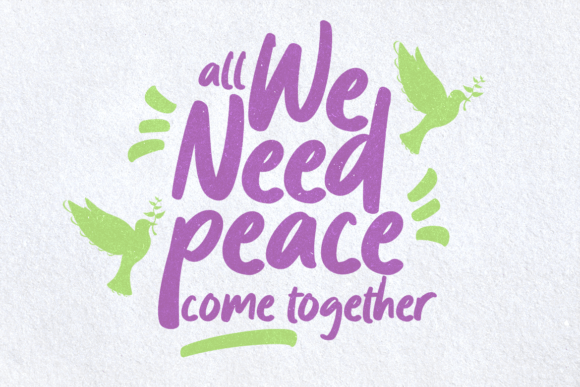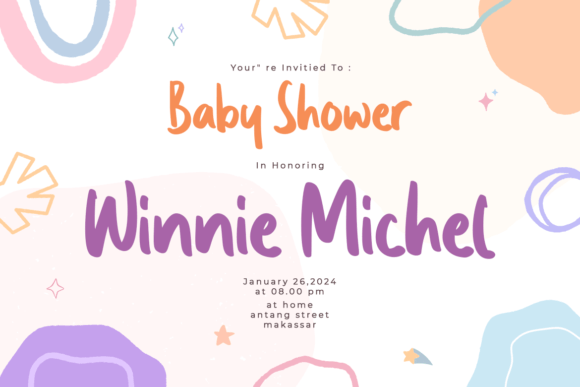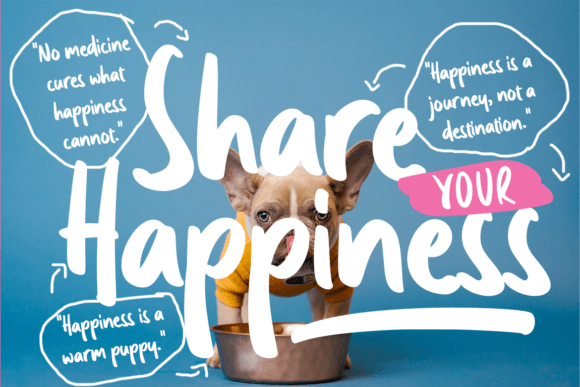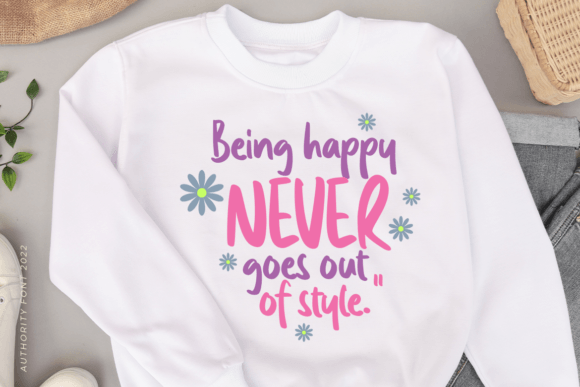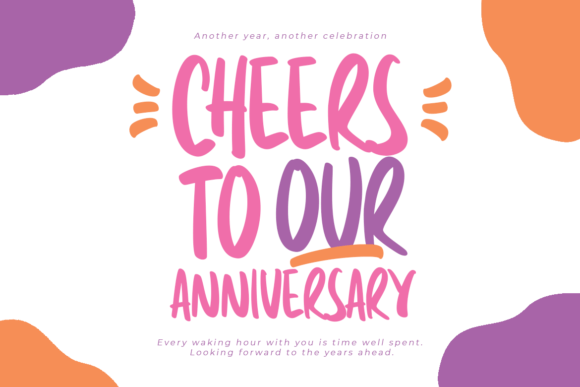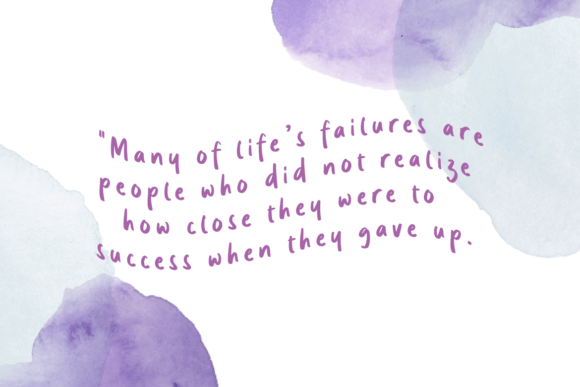
Introducing Authority Font: Elevate Your Designs with a Touch of Elegance
Are you on the hunt for a font that can add a dash of sophistication and playfulness to your creative projects? Look no further than Authority Font, a versatile and stylish handwritten script font that’s perfect for a wide range of applications. From greeting cards to headlines, and many more, Authority Font is the perfect addition to any design project.
What Makes Authority Font So Special?
Authority Font is a beautifully crafted handwritten script font that’s designed to give your designs a clean and exquisite feel. Its unique blend of elegance and playfulness makes it perfect for a wide range of projects, from formal events to casual social media posts. With Authority Font, you can add a touch of sophistication to your designs and make them stand out from the crowd.
Key Features of Authority Font
- Versatile: Authority Font is perfect for a wide range of applications, including greeting cards, headlines, posters, and more.
- Stylish: With its elegant and refined design, Authority Font is sure to add a touch of sophistication to any project.
- Playful: Despite its elegance, Authority Font still has a playful and fun vibe that’s perfect for casual designs.
- Handwritten: Authority Font is a beautifully crafted handwritten script font that adds a personal touch to any design.
- Clean: With its clean and refined design, Authority Font is perfect for designs that require a high level of legibility.
Why Choose Authority Font?
There are many fonts to choose from, but Authority Font stands out from the crowd for several reasons. Firstly, its unique blend of elegance and playfulness makes it perfect for a wide range of projects. Secondly, its clean and refined design ensures that your text is always legible, even at small sizes. Finally, Authority Font is incredibly versatile, making it perfect for everything from formal events to casual social media posts.
How to Use Authority Font in Your Designs
- Greeting cards
- Headlines
- Posters
- Social media posts
- Logos
Tips and Tricks for Getting the Most Out of Authority Font
Here are a few tips and tricks for getting the most out of Authority Font:
- Experiment with different sizes: Authority Font looks great at a wide range of sizes, from small and delicate to large and bold.
- Play with colors: Authority Font looks great in a wide range of colors, from bright and bold to subtle and pastel.
- Mix and match: Don’t be afraid to mix and match Authority Font with other fonts to create a unique and eye-catching design.
In conclusion, Authority Font is a versatile, stylish, and playful handwritten script font that’s perfect for a wide range of applications. With its unique blend of elegance and playfulness, clean and refined design, and incredible versatility, Authority Font is the perfect addition to any design project. So why wait? Download Authority Font today and start elevating your designs to the next level!